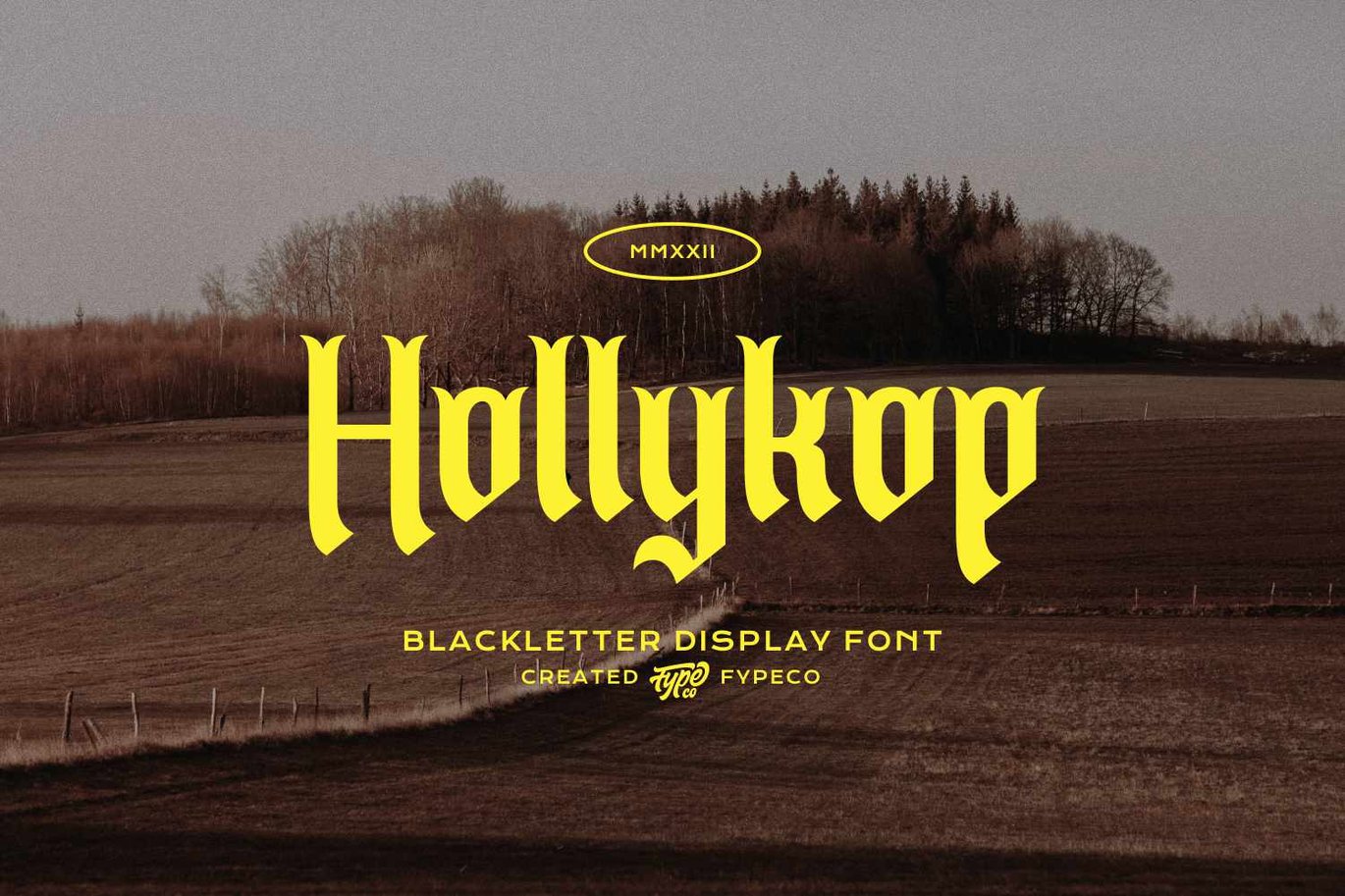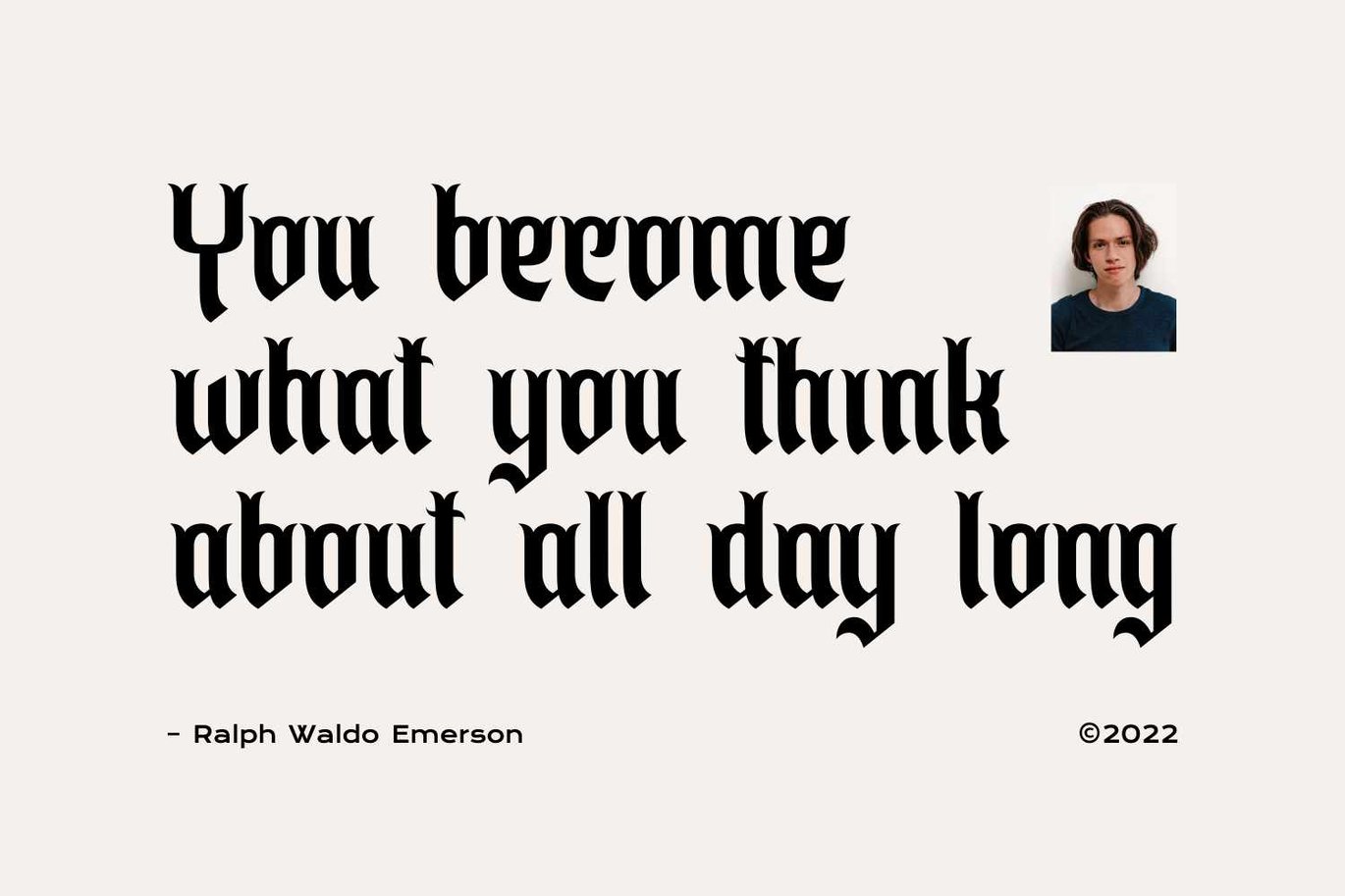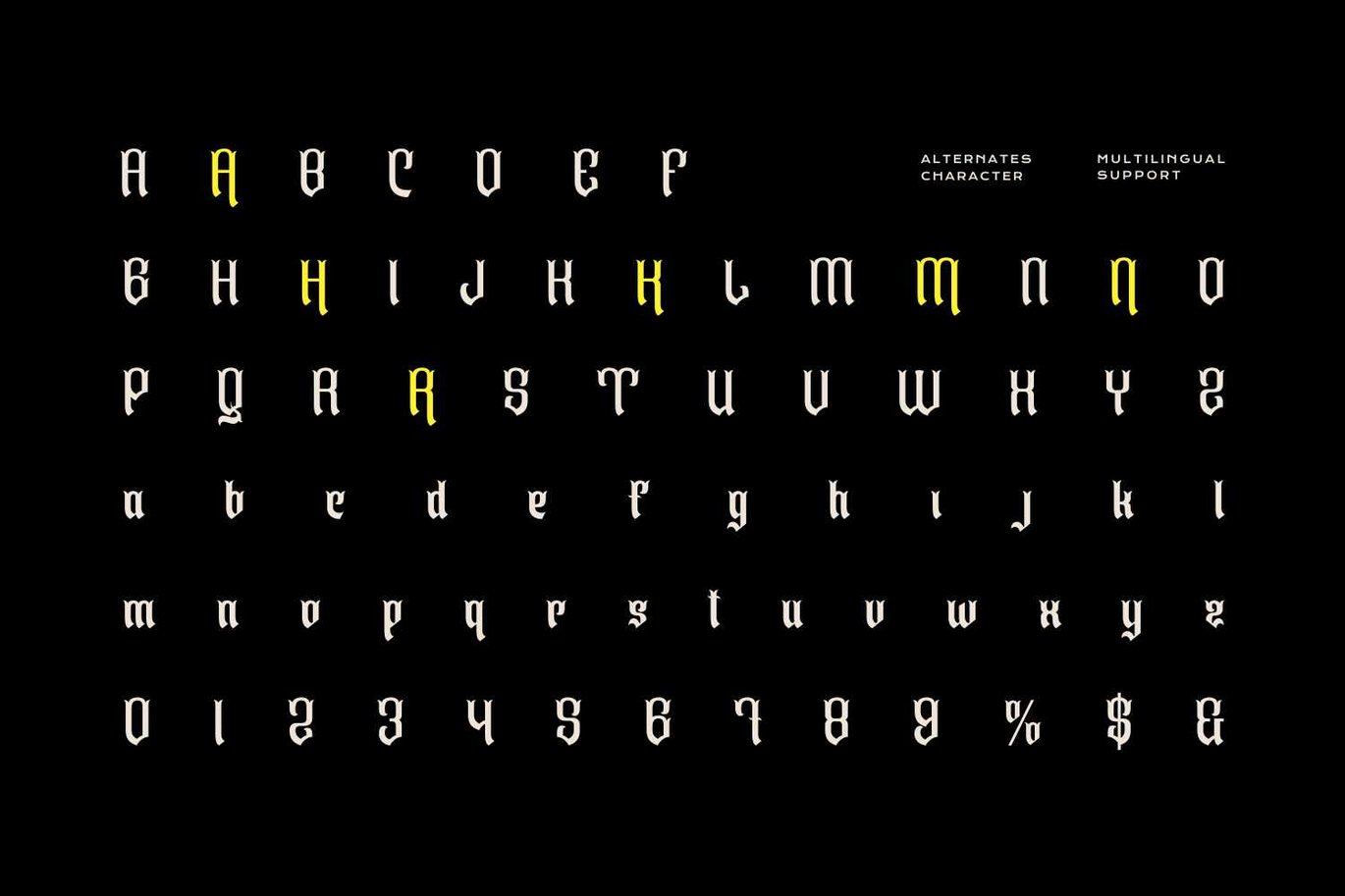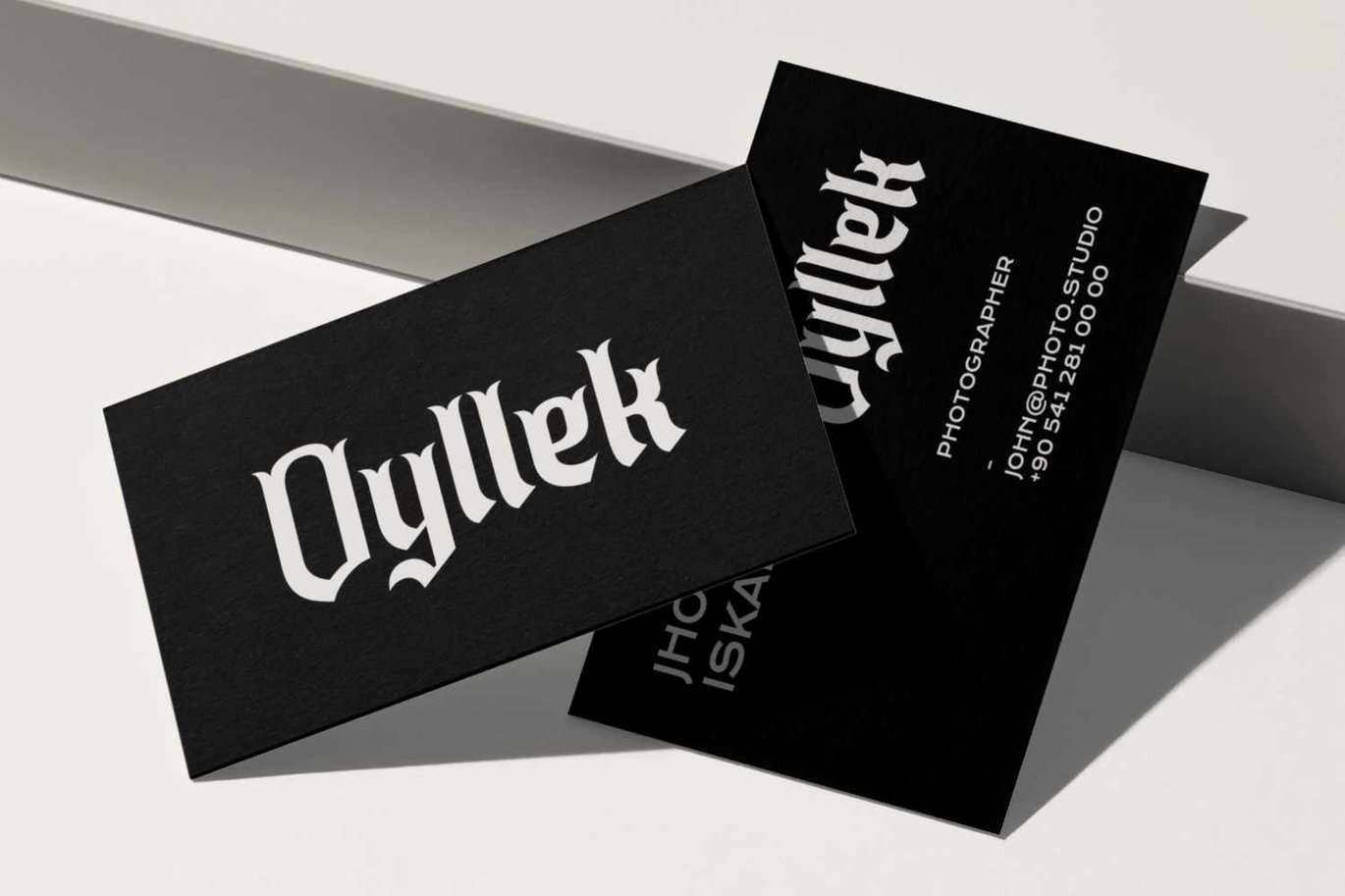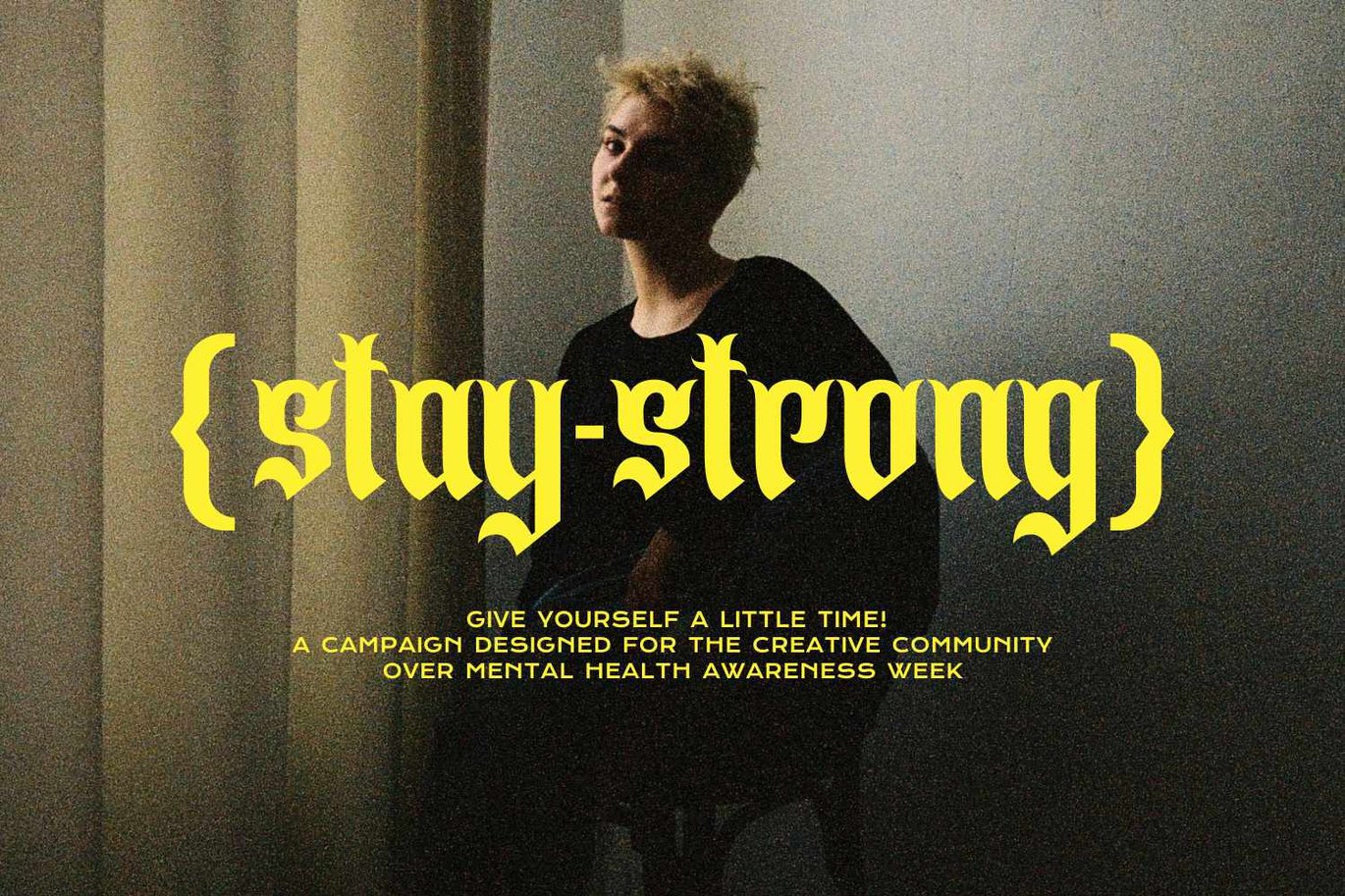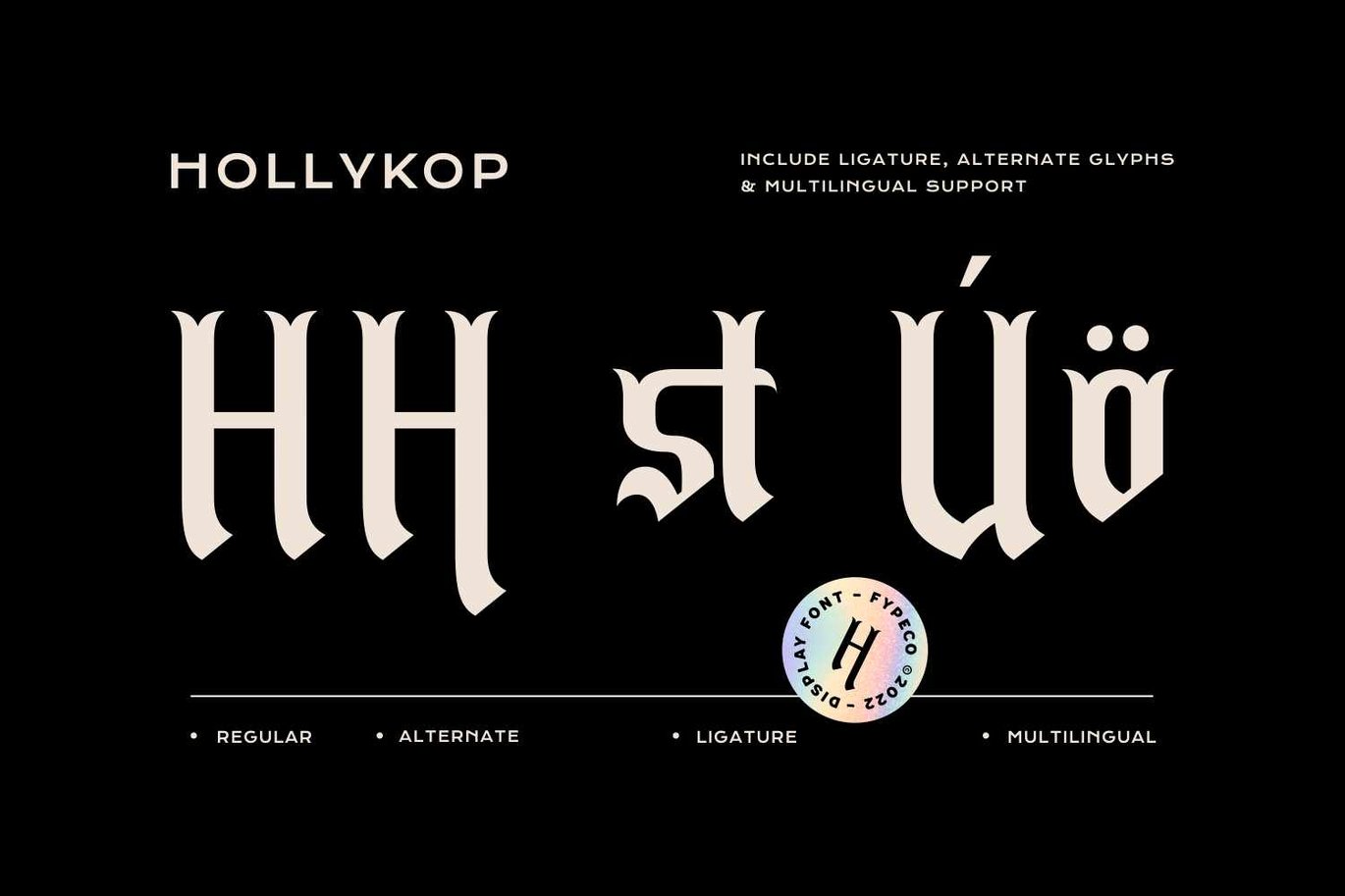
Hollykop – Medieval Font
Hollykop is blackletter font with modern style. With an modern style this font is perfect for your design needs. Besides that, this font is also equipped with ligatures, alternative characters and multi-language support. Hollykop is perfect for use as poster designs, branding, packaging, logos, apparel (t-shirts, jackets, etc.), cards, tattoo, or other design needs.
Font Features
- Alternatives